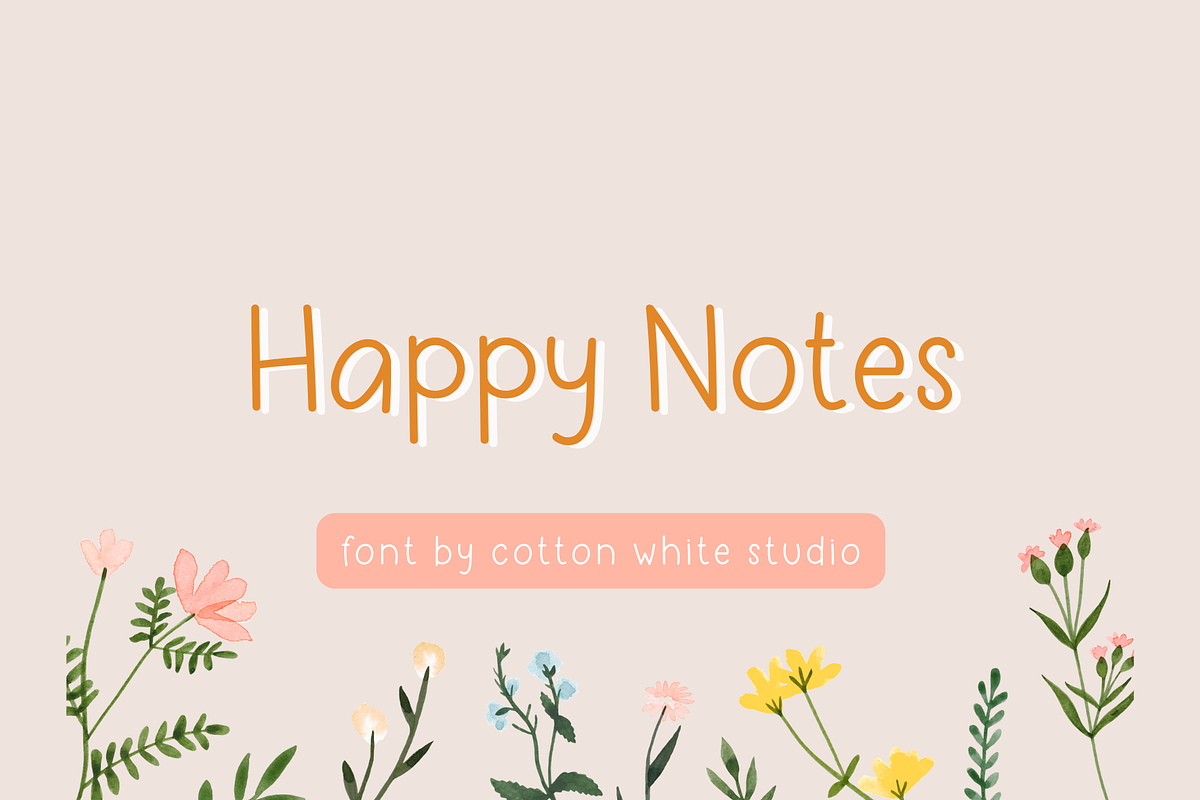
Happy Notes Font Free Download is a cheerful, handwritten typeface that captures the joy of doodles, journaling, and everyday positivity. With its playful letterforms, rounded strokes, and casual charm, Happy Notes is perfect for planners, greeting cards, stickers, social media posts, classroom materials, and any design that needs a lighthearted, personal touch.
Whether you're designing for kids, creatives, or just adding a bit of sunshine to your brand, this font makes every word feel fun and approachable. It pairs beautifully with bright colors and whimsical illustrations to create engaging and upbeat visuals.